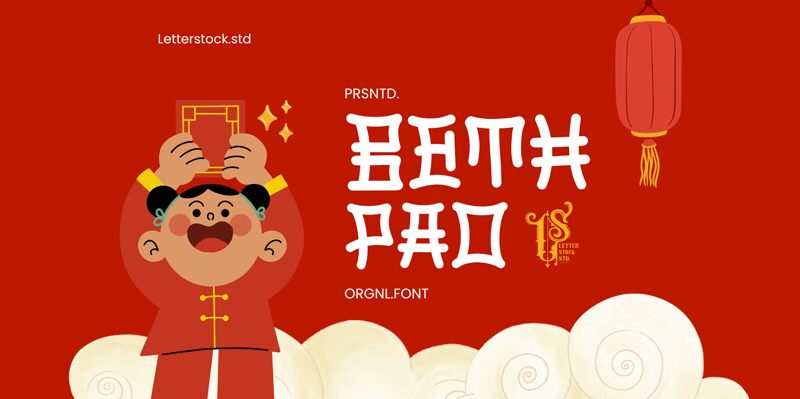
Beth Pao font by LetterStock Std is a distinctive cultural typeface with carefully crafted geometric elements bringing a modern twist to traditional Chinese forms. The ornamental essence exudes a ceremonial vibe, creating a harmonious blend that captures the beauty of the past and translates it into a contemporary design language. Each character mirrors a decorative, cultural style with unique elements that create a beautiful rhythm and appear engaging to the reader.
You may benefit from using Beth Pao in your projects such as festival posters, magazine titles, and event tickets. It also fits squarely in headings, web design, book covers, label and packaging design, as well as billboards. You could also create great quotes, greeting cards, and stationery products with this gorgeous font that everyone will love.